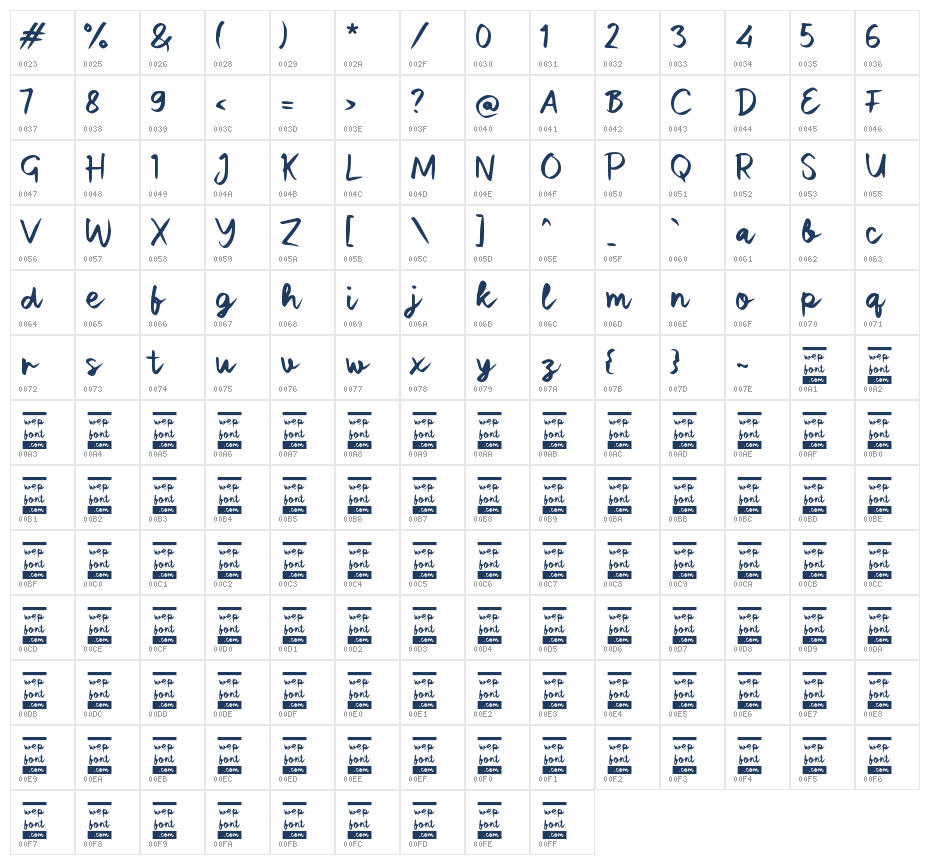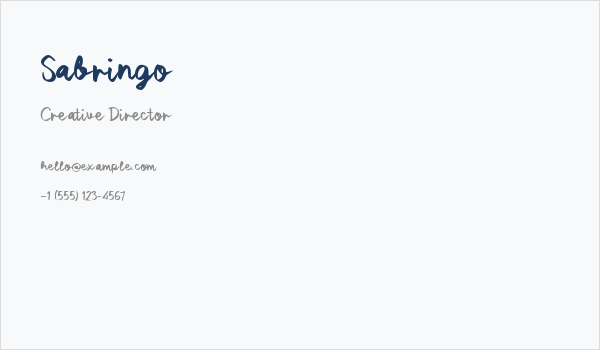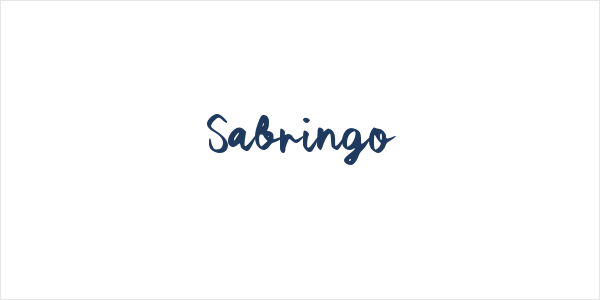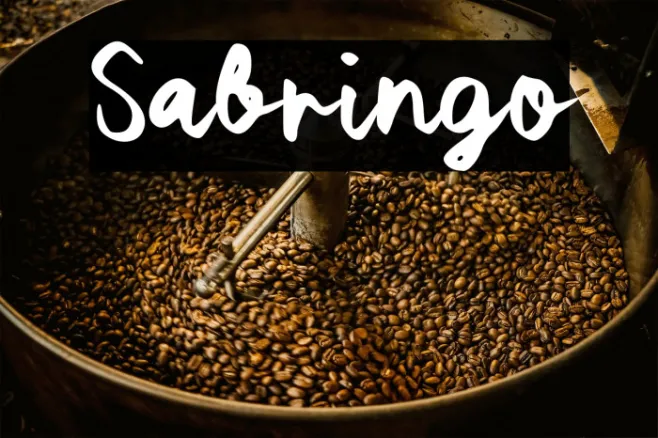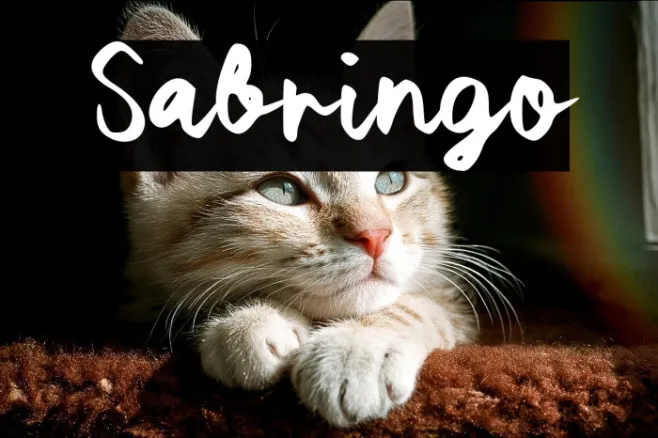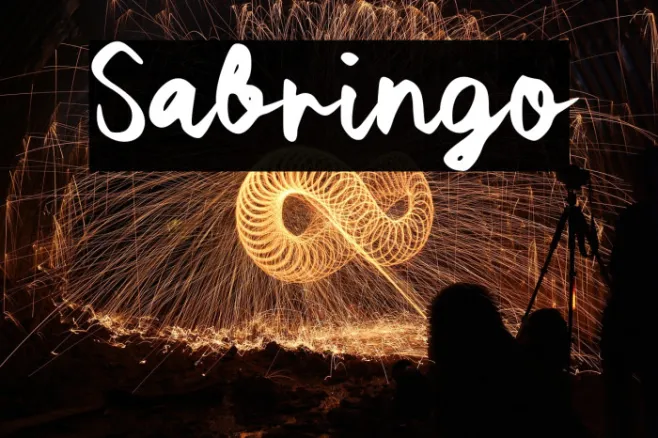
Sabringo Font
Sabringo Description
A casual, handwritten script font with a playful and informal style, featuring smooth curves and varying stroke widths.
| Use Case | Headlines, Logos, Invitations, Greeting cards |